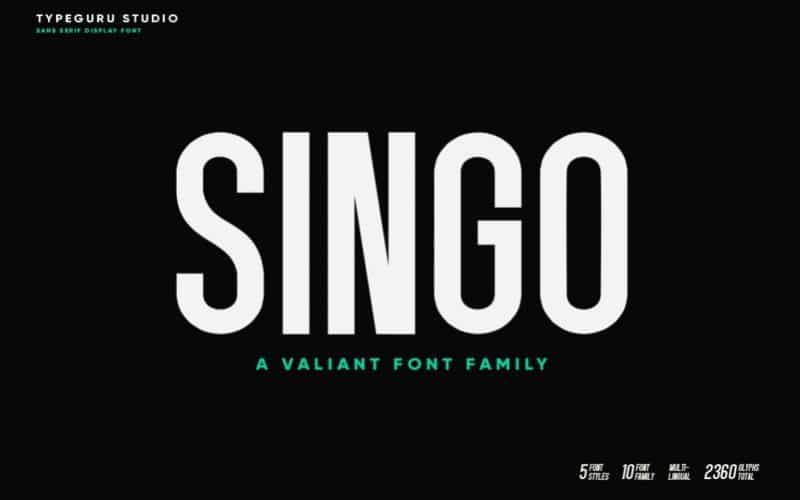
Singo Font
Singo Sans Serif Font is a sturdy condensed sans serif font package by typeguru. This basic serif includes letters A-Z, numbers 0-9, and limited special characters as shown in the listing images. Singo is great for sturdy headlines, menu titles, packaging or any such, the bigger the better.